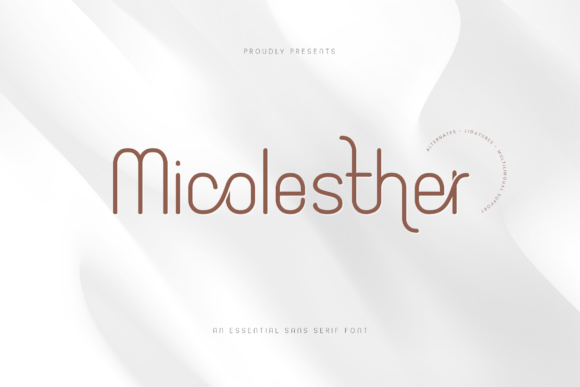
Prepare for a fontastic voyage with Micolesther, a stunning sans serif font that will elevate your typography to new heights! Bursting with innate elegance, Micolesther possesses an exquisite charm that captivates from the very first character.
Escape the shackles of ordinary fonts and embrace the extraordinary with Micolesther. Unleash your creativity and transform your designs into captivating masterpieces. Whether you're crafting social media posts that shine, whimsical logos that captivate, or heartfelt wedding invitations that leave a lasting impression, Micolesther is your trusty companion, ready to elevate your creations to unparalleled levels.
With its versatility, Micolesther shines in a myriad of design realms. Its crisp, clean lines and graceful curves bestow a sophisticated touch to branding projects, while its playful spirit lends itself perfectly to children's books and whimsical illustrations. The possibilities are limitless, and only your imagination sets the boundaries.
Hop aboard the Micolesther express and embark on a journey through the world of exceptional typography. Say goodbye to bland, forgettable fonts and hello to a world where characters dance with beauty and grace. Let your designs blossom into works of art, captivating audiences with every stroke.
Join the Micolesther revolution today and elevate your designs to the realm of the extraordinary. Unleash your inner artist, embrace the magic of Micolesther, and let your creativity soar!